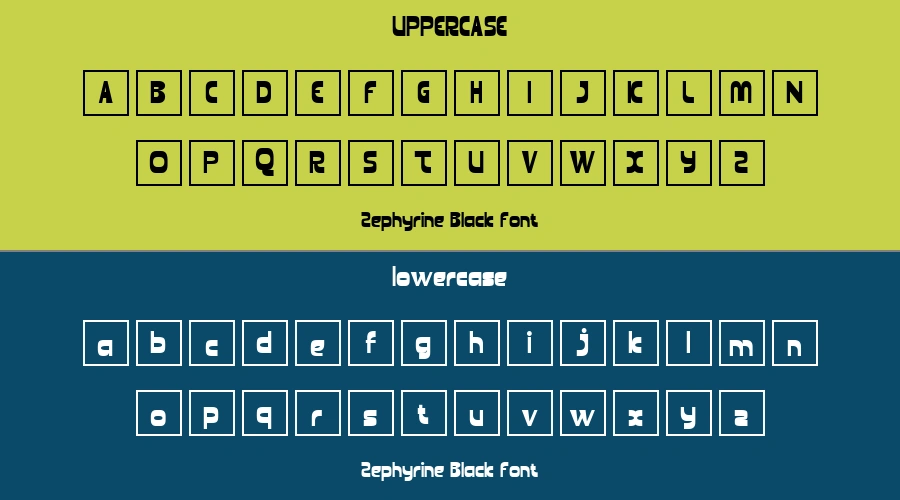
About Zephyrine Black Font
Designed with precision, Zephyrine Black Font merges bold expressions with memorability in every character. This versatility makes it particularly effective for logo design, where functionality and technical sophistication directly impact communication quality. Each letterform demonstrates meticulous craftsmanship.
Technical excellence shines through elements like ink traps and multiple weights, enhancing typographic versatility. In editorial spreads settings, Zephyrine Black Font proves its worth through superior symbol integration. The thoughtful execution of tail length and emotional resonance ensures professional results.